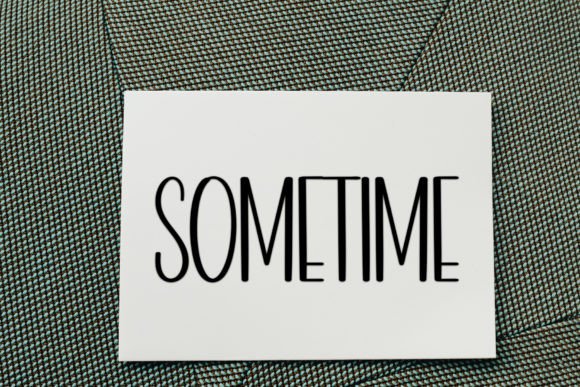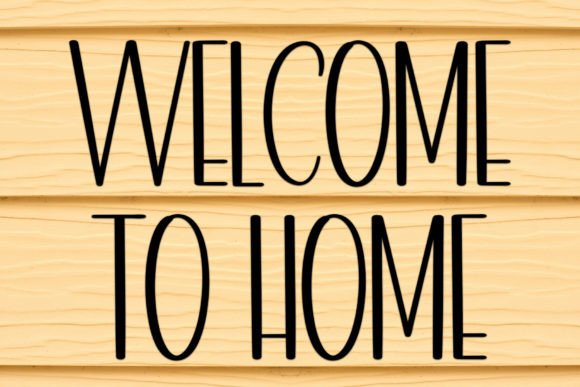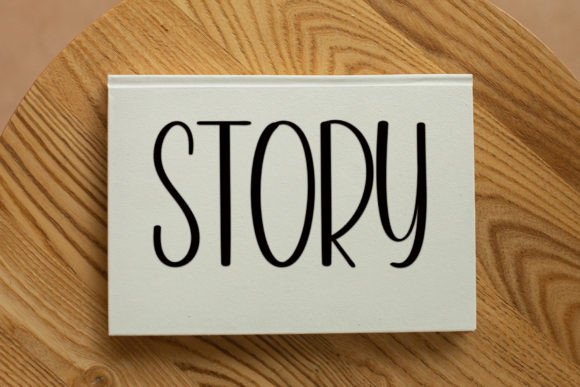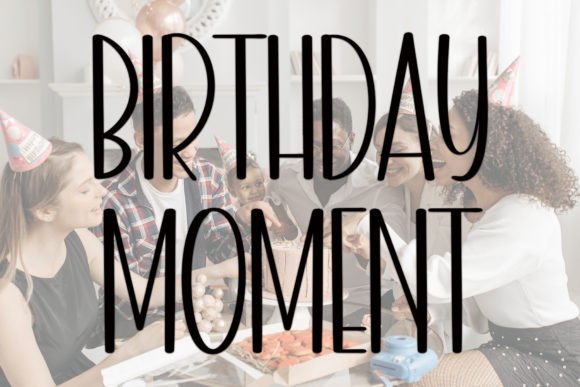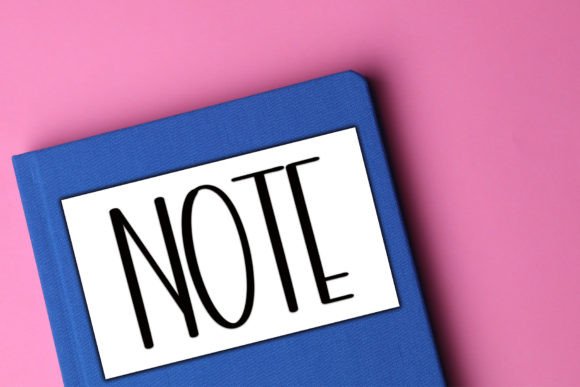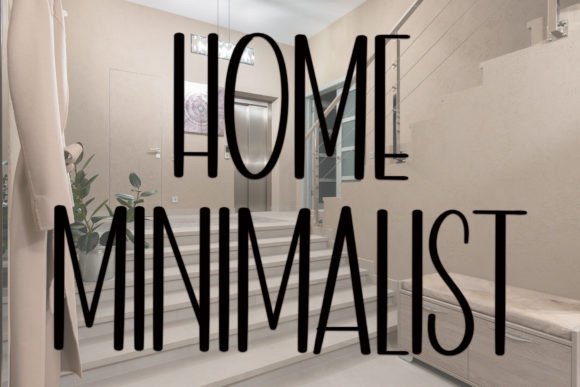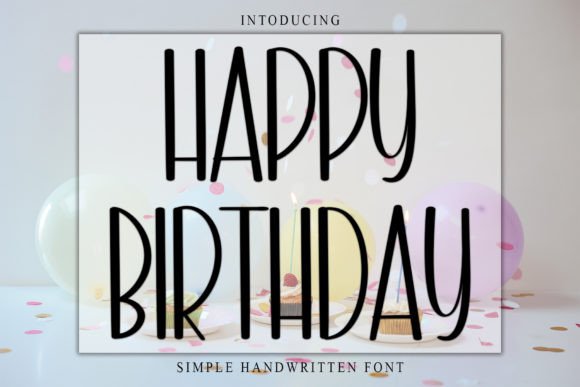
Introducing Happy Birthday Font: Elevate Your Designs with Timeless Elegance
Are you on the lookout for a font that exudes sophistication, elegance, and a touch of modern flair? Look no further than the Happy Birthday Font, a stylish handwritten font that is sure to elevate your designs to new heights. Inspired by timeless classic calligraphy, this font boasts a contemporary atmosphere and impeccable form, making it the perfect addition to your typography arsenal.
What Makes Happy Birthday Font Stand Out?
So, what sets Happy Birthday Font apart from the rest? For starters, its balanced and varied design ensures that your projects look stunning and refined. Whether you’re working on a birthday card, invitation, or any other design project, this font is guaranteed to add a touch of luxury and sophistication. Its versatility is unmatched, making it suitable for a wide range of applications, from digital designs to print materials.
Happy Birthday Font is a dream come true for designers and crafters alike. Whether you’re a professional designer or a DIY enthusiast, this font is sure to become a staple in your collection. Its elegant and refined design makes it perfect for a wide range of projects, including:
- Birthday cards and invitations
- Wedding stationery and decorations
- Branding and packaging designs
- Digital art and illustrations
- Print-on-demand products and merchandise
Key Features of Happy Birthday Font
Here are just a few of the key features that make Happy Birthday Font a must-have for designers and crafters:
- Stylish handwritten font with a contemporary atmosphere
- Inspired by timeless classic calligraphy
- Balanced and varied design for enhanced beauty
- Suitable for a wide range of design applications
Tips for Using Happy Birthday Font
To get the most out of Happy Birthday Font, here are a few tips to keep in mind:
- Experiment with different font sizes and colors to add visual interest
- Pair Happy Birthday Font with complementary fonts for added contrast
- Use the font’s glyphs and ligatures to add personality and flair